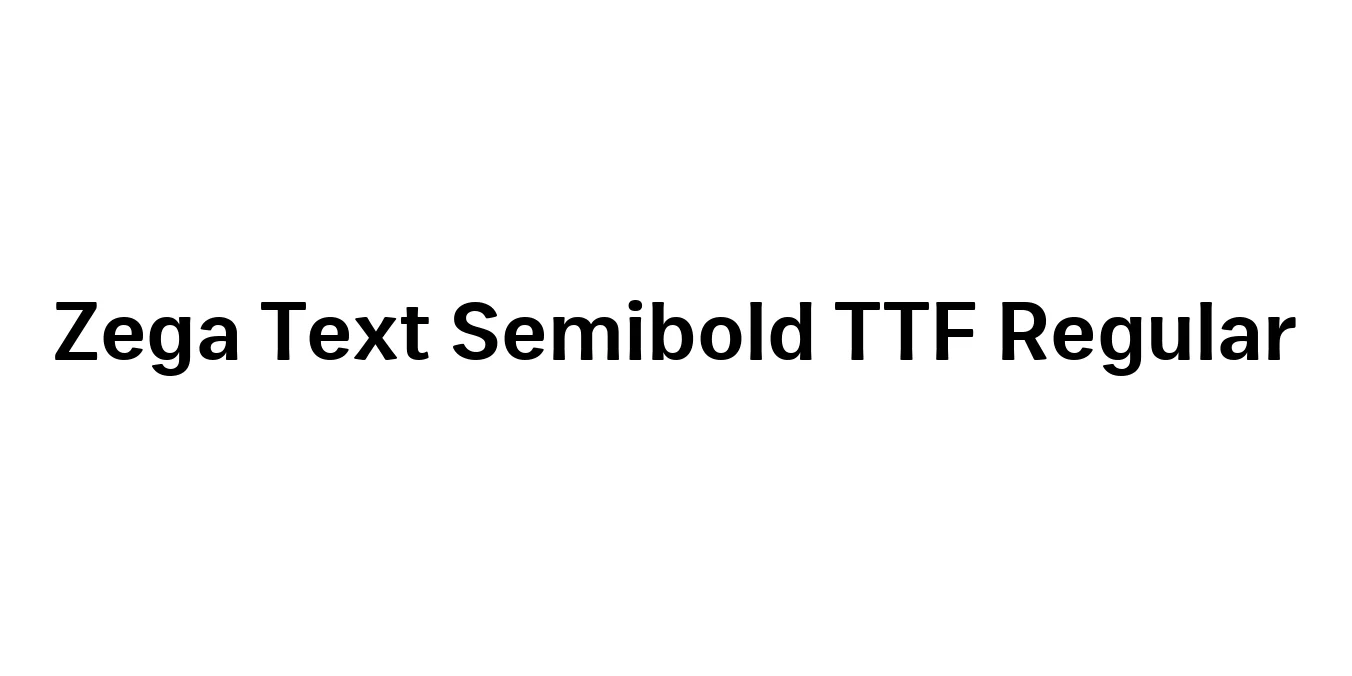
Zega Text Semibold TTF Regular
Designed by Thierry Puyfoulhoux
Zega Text Semibold is a refined sans-serif typeface designed by the renowned Thierry Puyfoulhoux. Developed to provide a perfect balance between humanistic warmth and geometric structure, this font family stands out for its exceptional legibility and professional aesthetic. The Semibold weight provides a sturdy, confident presence that is neither too heavy nor too light, making it a versatile tool for designers who require clear communication in dense typographic environments.
As part of the wider Zega collection, the Text version is specifically optimized for readability at smaller sizes. It features open counters and carefully balanced proportions that ensure clarity on both high-resolution screens and traditional printed paper. Zega Text Semibold is an excellent choice for corporate identity systems, editorial layouts, and sophisticated user interfaces where clarity and a modern touch are paramount.
Zega Text Semibold TTF Regular Best Uses
Ideal for magazines and journals requiring clear, medium-weight body copy or sub-headers.
Perfect for official business documentation, logos, and visual identity systems.
Ensures high readability for navigation menus, buttons, and UI elements.
Great for textbooks and technical manuals where long-form reading comfort is necessary.